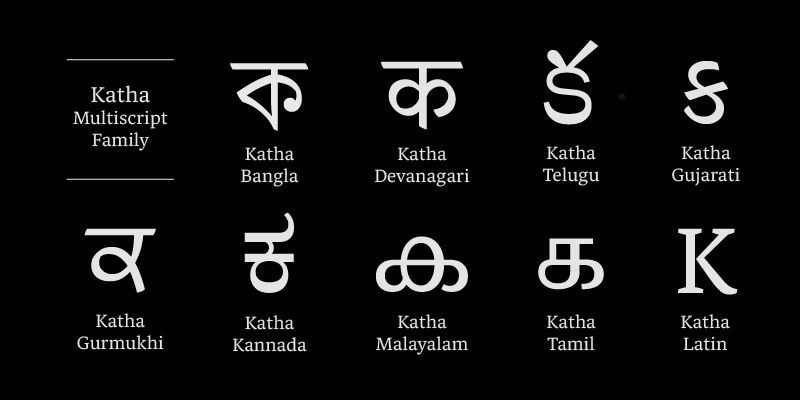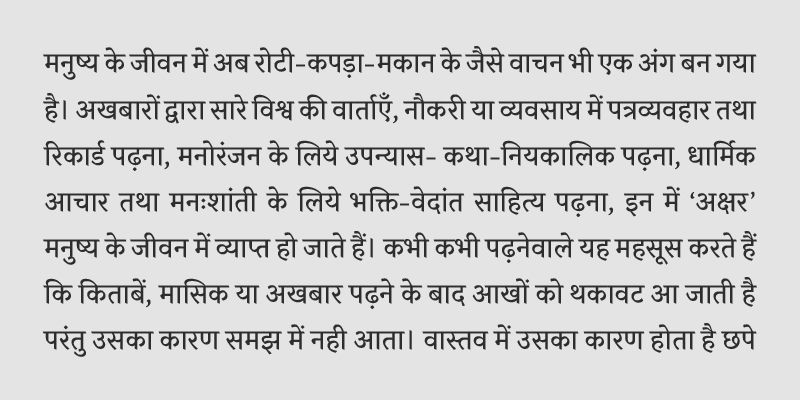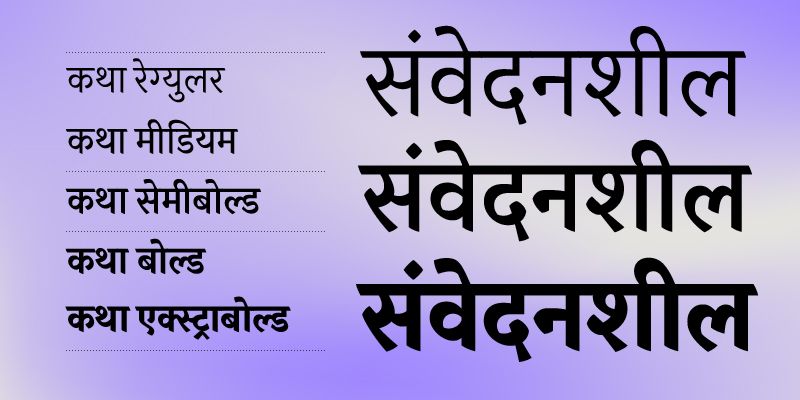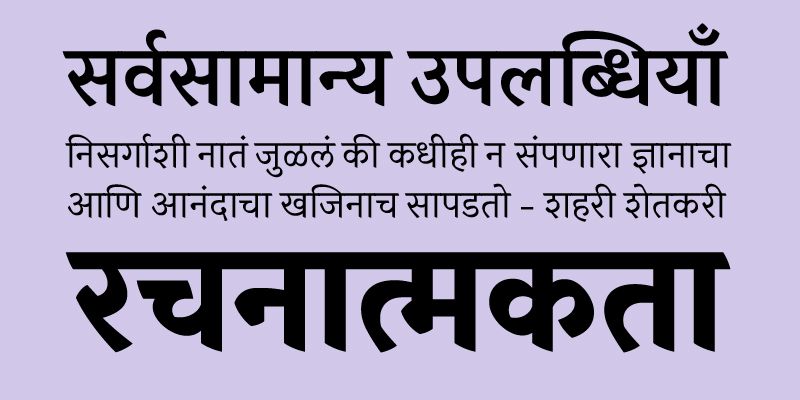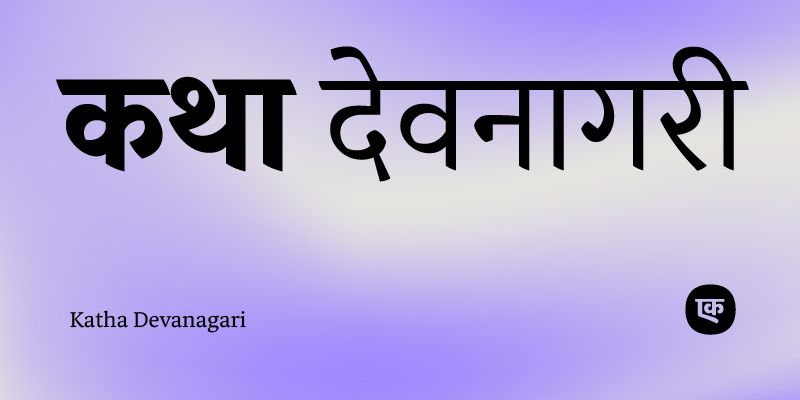
Katha is a contemporary modulated multi-script type-family that is perfect for endless passages of words and stories. It imbues text with a formal and trustworthy gravitas, all the while appearing fresh and modern. The scripts in this family are rooted in familiarity; a nod to text typefaces before them. At the same time a sense of newness shines through, owing to the balanced shapes and subtly novel interpretations of letterforms.